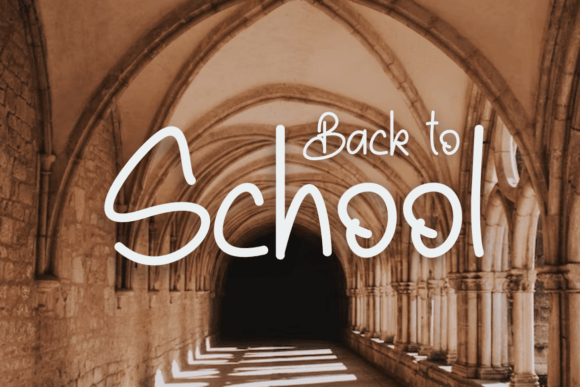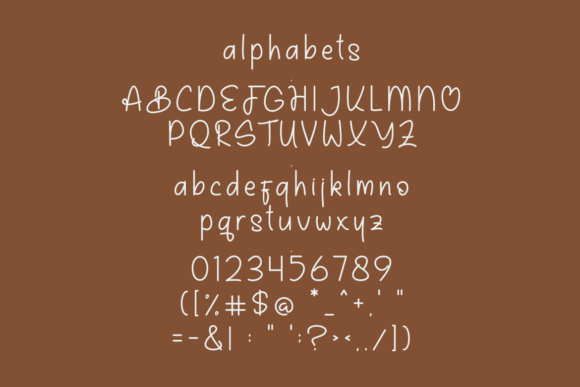
Introduction to Kalebrio Font
Kalebrio is a cool and friendly handwritten font.
It looks beautiful on a variety of designs requiring a personalized style, such as wedding invitations, thank you cards, greeting cards, logos, and so on .
Why Choose Kalebrio Font?